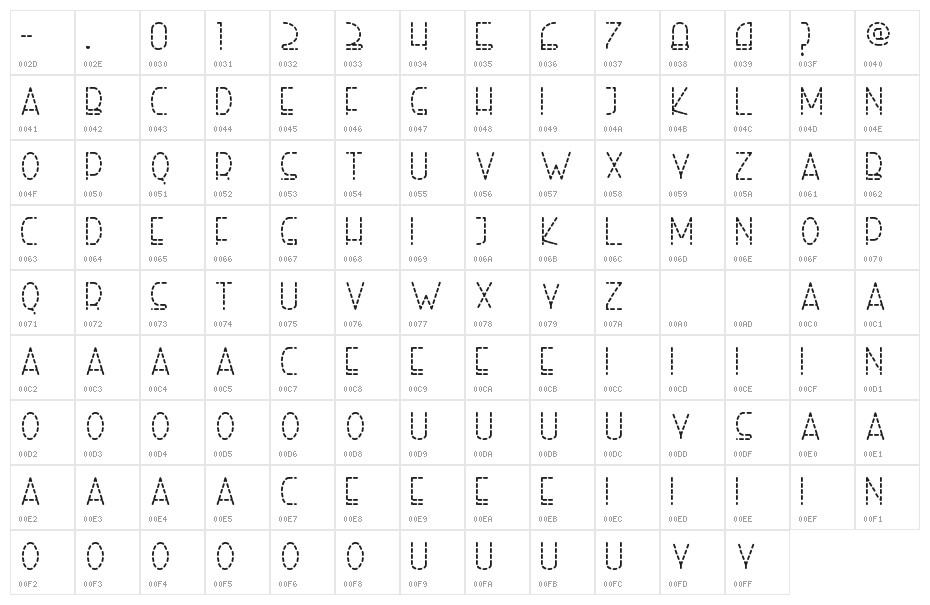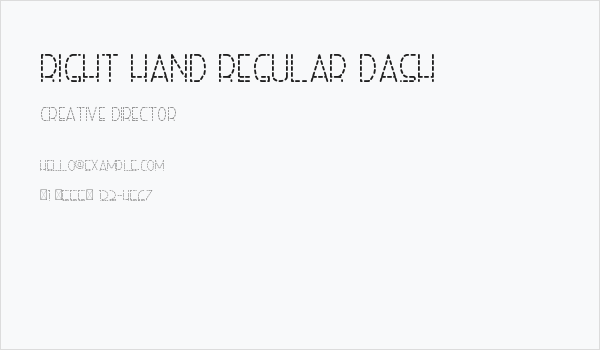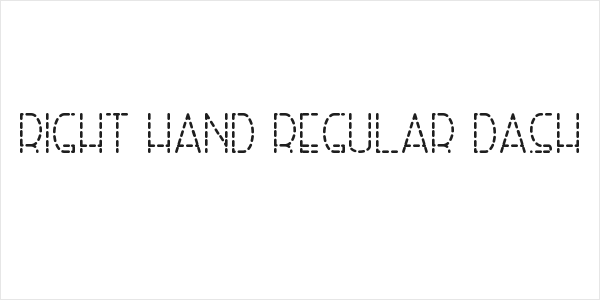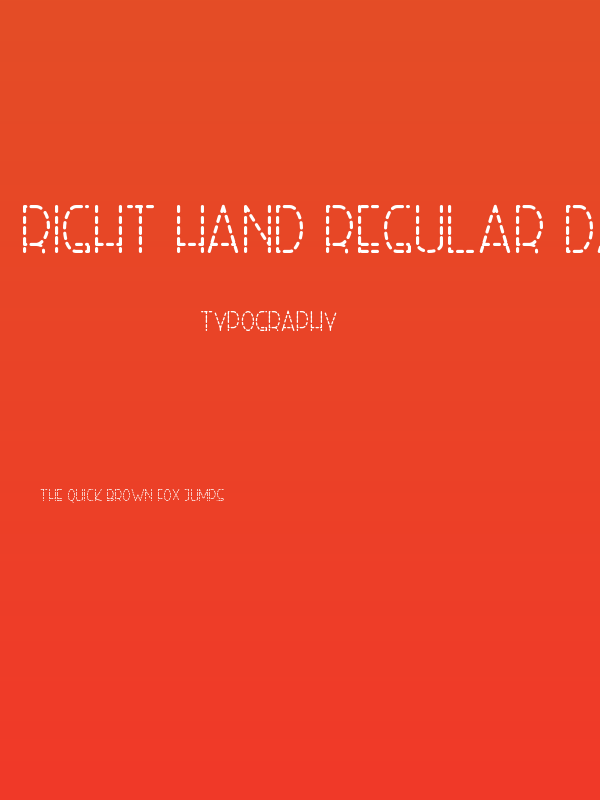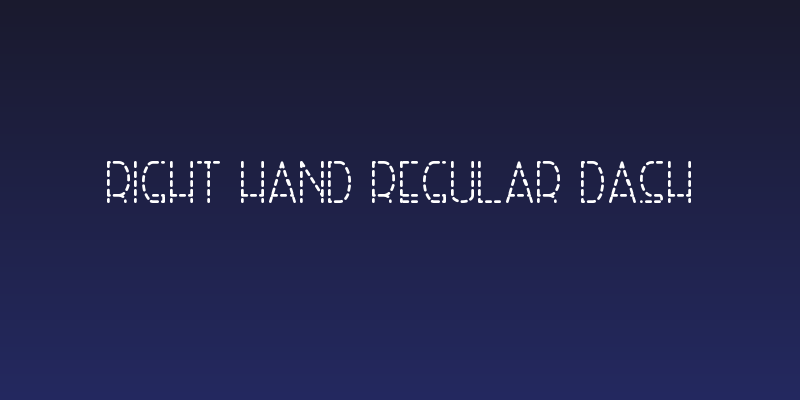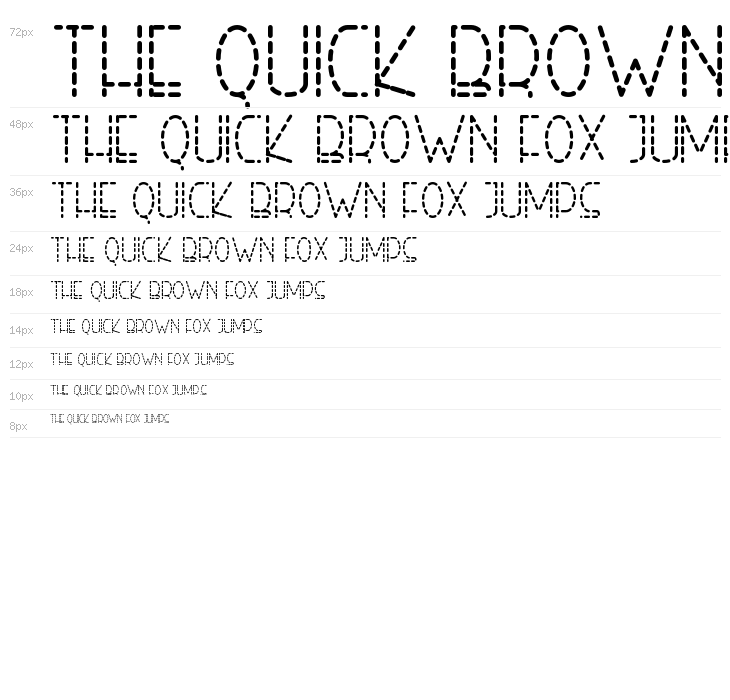
Right Hand Regular Dash Font
Right Hand Regular Dash Description
This font features a unique dashed line style, giving it a distinct appearance reminiscent of a stencil or a guide for tracing. Each character is composed of evenly spaced dashes, creating a playful and informal look. The uppercase and lowercase letters maintain consistent proportions, while the numerals and special characters follow the same dashed pattern. This design choice makes the font particularly eye-catching and suitable for creative projects. The overall appearance is clean and modern, with a touch of whimsy due to the dashed lines.
| Overall Style | Modern, Decorative |
| Use Case | Headlines, Logos, Creative projects |
| Proposed Projects | Ideal for educational materials, children's books, playful branding, or any project requiring a creative and informal touch. |